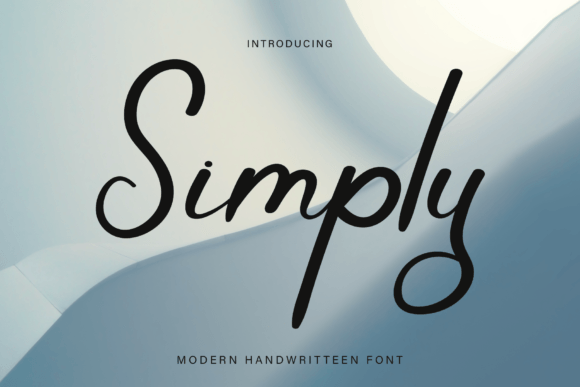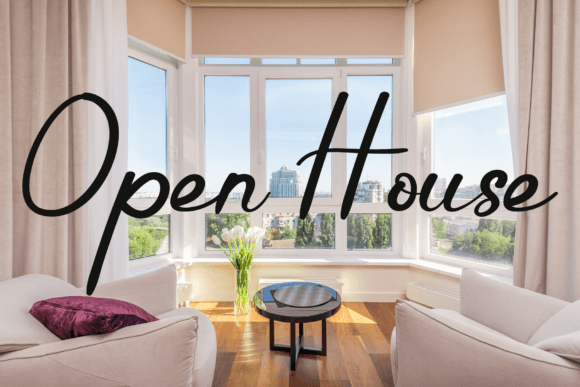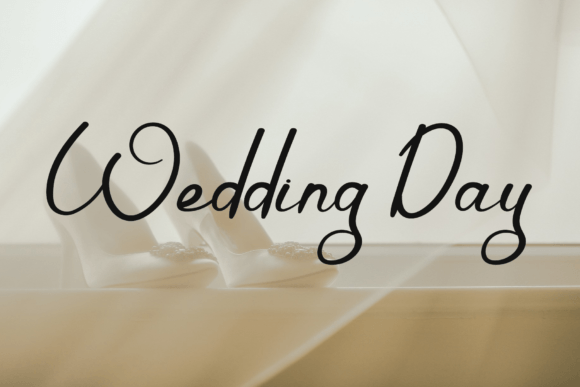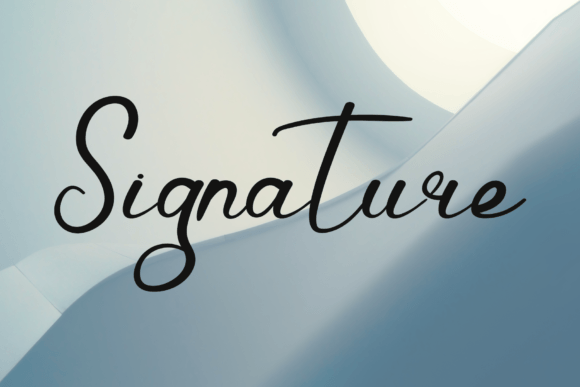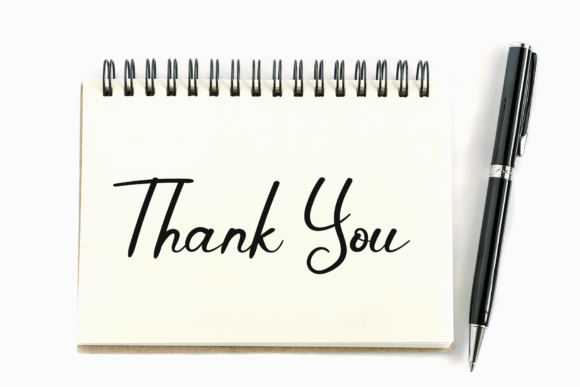
Simply Font
“Simply is a trendy handwritten font that exudes a contemporary atmosphere and impeccable form, drawing inspiration from timeless classic calligraphy. With its stylish design, Simply adds elegance and class to any of your design projects, making it a versatile choice for a variety of creative applications. This font can be employed to write various kinds of products, adapting to the specific aspect of each need.
The allure of Simply lies in its trendy handwritten style, which seamlessly blends modernity with timeless calligraphic elements. The clean lines and sophisticated curves contribute to an aesthetic that is both current and classic, making it suitable for a range of design purposes.
Whether you’re working on branding, invitations, signage, or any other creative project, Simply’s contemporary atmosphere allows it to complement diverse design needs. Its versatility makes it a valuable asset for adding a touch of sophistication to your creations.
In summary, Simply is more than just a font; it’s a design tool that brings a trendy and timeless elegance to your projects. With its contemporary atmosphere and impeccable form, Simply stands out as a font that can enhance the visual appeal of a wide array of design applications. Explore the possibilities and let Simply add a touch of class to your creative endeavors.”